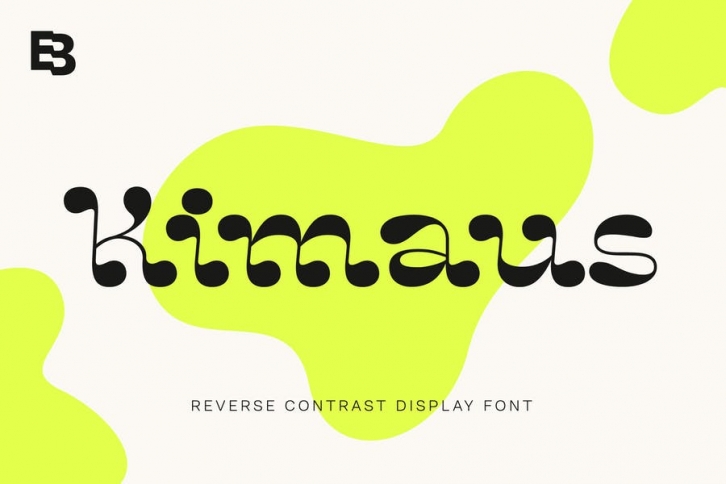
Kimaus is reverse contrast display font. It's letterforms are inspired by the classic cartoon style. Fit for titling and unique looking designs and creative projects.